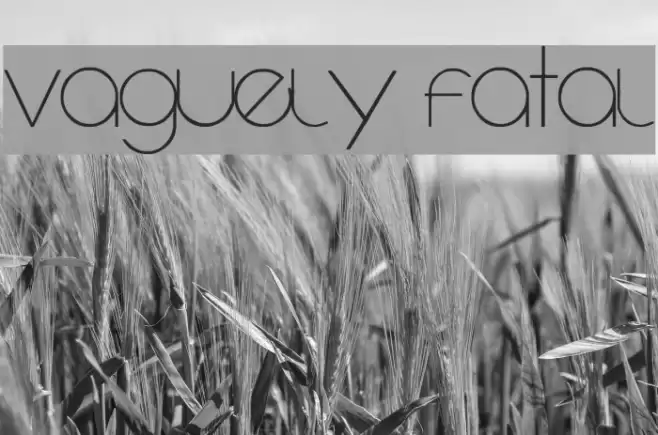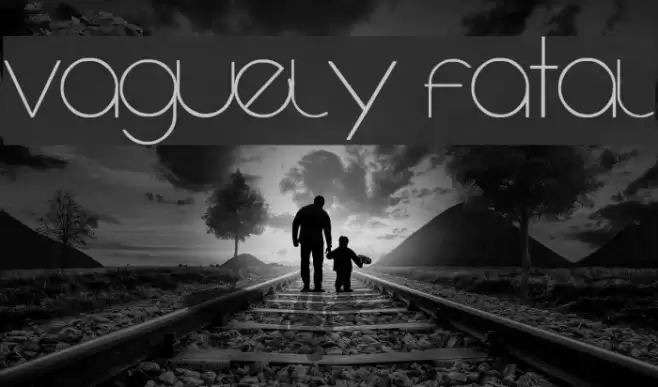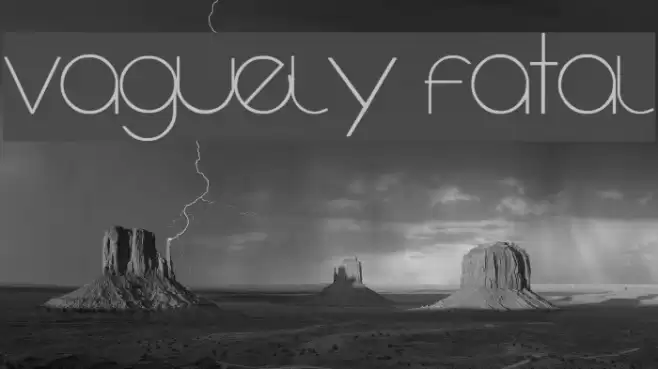
Vaguely Fatal Font
Vaguely Fatal Description
This font features a sleek and modern design with a geometric and minimalistic approach. The characters are composed of thin, uniform lines that create a clean and airy appearance. The uppercase and lowercase letters maintain a consistent style, with rounded edges and a balanced structure. Numbers and special characters follow the same design principles, ensuring a cohesive look across all glyphs. The overall aesthetic is contemporary and stylish, making it suitable for a variety of design applications. Its simplicity and elegance make it versatile for both digital and print media.
A sleek, modern font with geometric, minimalistic design and uniform thin lines from Uncategorized fonts.
- Proposed Projects: Ideal for branding, modern web design, advertising, and editorial layouts.